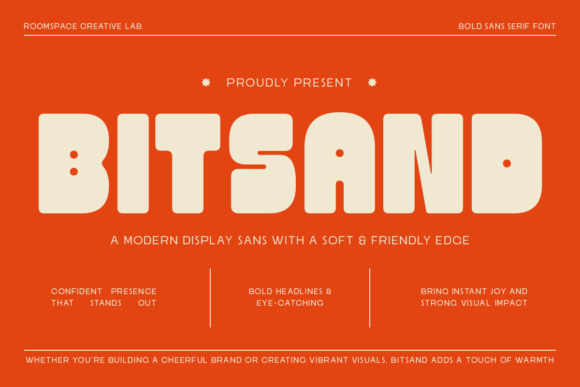
Bitsand: A Bold Sans Serif Font for Crafters and Product Designers
Bitsand and the Power of Rounded, Friendly Typography
Bitsand is a bold display sans serif font designed to bring warmth, energy, and personality into your designs. With its rounded shapes and soft edges, it creates a friendly and approachable tone while still maintaining a strong presence. Whether you're creating digital printables or physical products, this font adds a touch of charm and modernity that appeals to customers across a variety of niches.
Bitsand for Wedding Invitations and Elegant Branding
If you're a stationery designer or Etsy seller creating wedding invitations, Bitsand is a standout choice. Its bold structure ensures readability even in smaller print sizes, while the soft edges give a sense of warmth and intimacy. Use it for welcome signs, seating charts, or save-the-date cards to create a cohesive and inviting brand identity that couples will love. Pair it with a delicate script font for a balanced, elegant look.
Using Bitsand for Product Labels and Handmade Packaging
For small shop owners and crafters selling candles, soaps, or boutique-style goods, Bitsand works beautifully on product labels. Its bold, clean lines make it easy to read at a glance, which is essential for packaging that needs to convey information quickly. The rounded corners give a handmade, approachable feel that aligns well with organic or artisanal branding. Make sure to test print or preview on mockups to ensure clarity, especially for small sticker applications.
Bitsand in Seasonal Crafts and Holiday Designs
This sans serif font shines in seasonal design projects like holiday cards, pumpkin signs, or Easter tags. Its cheerful personality and bold presence make it ideal for festive themes. Whether you're designing SVG files for Cricut or Silhouette machines or printing directly onto cards, Bitsand brings energy and clarity to your seasonal crafts. Try using it in red or green tones for Christmas tags or in pastel shades for springtime banners.
Bitsand for Digital Printables and Planner Pages
Printable creators know the importance of readability and visual appeal, and Bitsand delivers both. It works well for planner stickers, to-do lists, or motivational quote pages. Its bold nature makes it stand out without being overwhelming, and the soft edges give a comforting, approachable feel. For digital downloads, this font helps your product stand out in a crowded market while remaining easy on the eyes for daily use.
Pairing Bitsand with Other Fonts for Visual Harmony
Font pairing is key to professional-looking designs, and Bitsand pairs well with both script and serif fonts. For a modern look, combine it with a clean, minimalist serif for body text. For a playful, whimsical design, use a handwritten or brush script font for accents. This versatility makes it a go-to font for SVG designers, digital creators, and product label makers who need flexibility across multiple design styles.
Bitsand on Merchandise: Mugs, Shirts, and Tote Bags
Whether you're screen printing or using heat transfer vinyl, Bitsand holds up beautifully on merchandise. Its bold, rounded style makes it ideal for short phrases, names, or logos on mugs, tote bags, and t-shirts. Because of its strong character presence, it works well for boutique-style branding or personalized gifts. Make sure to scale appropriately for different garment sizes or mug shapes to maintain clarity and impact.
Bitsand for Farmhouse Signs and Rustic Wall Art
Handmade sign makers and wall art creators will find Bitsand to be a versatile choice for farmhouse and rustic designs. Its boldness ensures visibility from a distance, while the rounded edges soften the overall look to match cozy, welcoming interiors. Use it for phrases like “Welcome Home” or “Live Laugh Love” to give your signs a modern twist on a classic style.
Bitsand and Readability for Cutting Machines
For Cricut and Silhouette users, Bitsand performs well in both vinyl and paper projects. Its clean, bold lines make it easy to cut accurately, even at smaller sizes. When designing stickers or labels, make sure to space letters appropriately and avoid overlapping elements that could complicate the cutting process. Preview your design at actual size before sending it to your machine to ensure readability and precision.